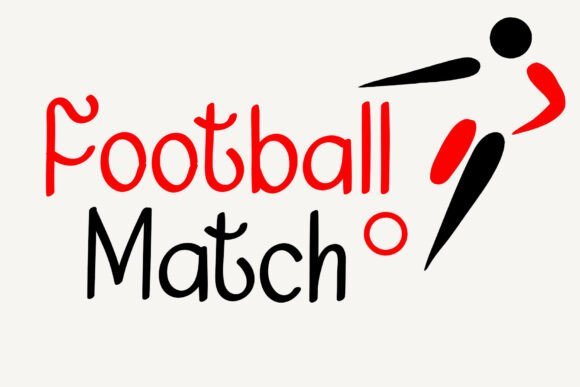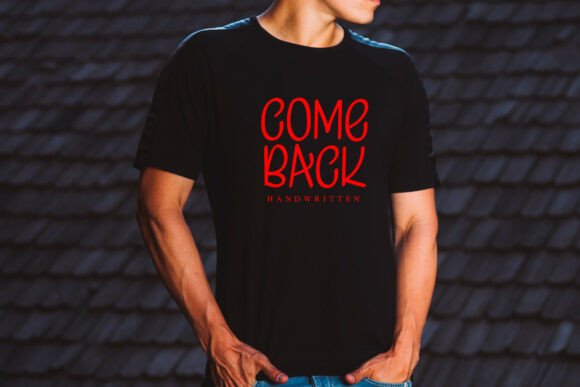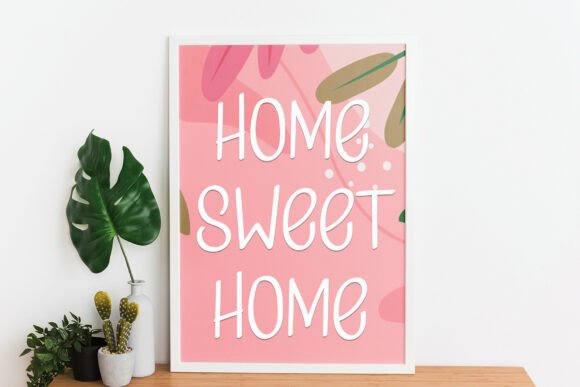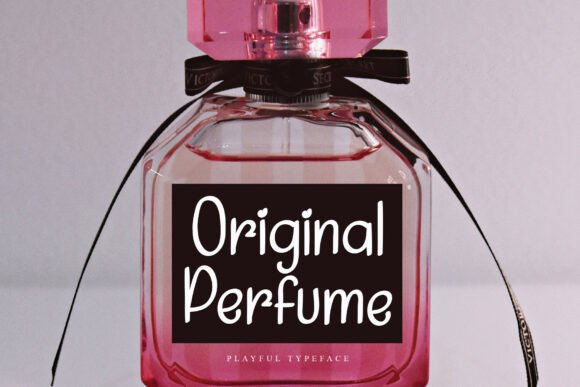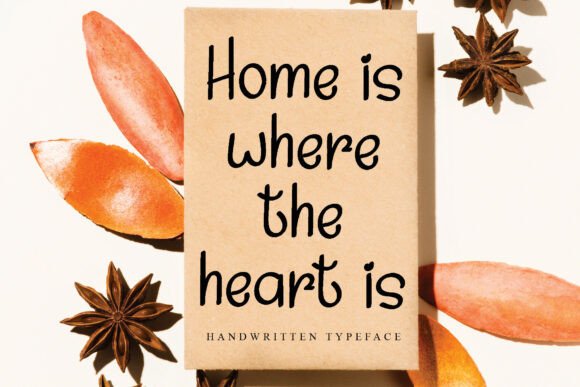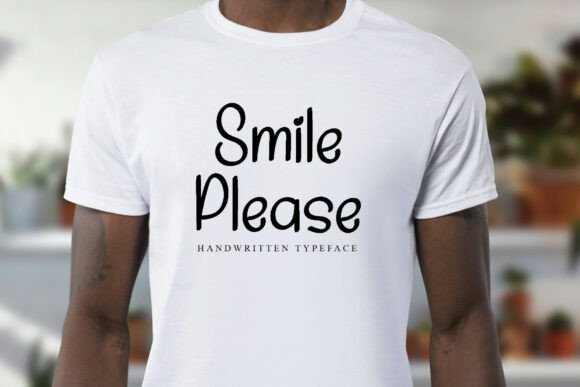
Getting Ready for Kickoff: Introducing Football Match Font
As you sit down to design your next project, you’re suddenly hit with a burst of inspiration – the sound of cheering crowds, the smell of freshly cut grass, and the thrill of competition. You can almost hear the roar of the stadium as you imagine the perfect typography to match the energy of the game.
Enter Football Match Font, a high-energy, casual handwritten display font designed to capture the fast-paced movement of the pitch. Engineered for sports enthusiasts and playful layouts, this dynamic font is the perfect way to add a friendly, athletic vibe to your designs. Whether you’re creating posters for a youth league tournament or custom athletic t-shirt prints, Football Match Font is a valuable asset that’s sure to score big on personality.
As a designer, you know the importance of choosing the right font to convey your message. Football Match Font is a fantastic choice for a wide variety of youth sports and community projects, offering a unique blend of readability and visual flair that’s sure to leave a lasting impression.
Key Features of “Football Match Font”
- Unique Characteristics: Features a custom-designed set of ligatures and swashes to enhance the visual appeal of match scores, player names, and other text elements, giving it a distinctive and modern look.
Football Match Font Review
First off, I have to say that Football Match Font is a unique and attention-grabbing choice for sports-related designs. ✨ The bold, dynamic feel really captures the energy of a live match, and the font’s varied letterforms add a fun, hand-drawn quality that sets it apart from more generic sans-serifs. ✨ The font also includes a range of alternates and swashes that can be used to add flair and personality to headings and titles.
However, there are some limitations to consider. ⚠️ One of the main issues is that the font’s boldness can sometimes feel overwhelming, making it difficult to read at smaller sizes or in certain contexts. ⚠️ Additionally, the font’s more ornate features can be a bit inconsistent, which may make it harder to achieve a cohesive look across different elements of a design.
In terms of overall impression, Football Match Font is a great choice for sports-themed designs or anything that needs a bold, energetic feel. However, it’s worth being mindful of the potential limitations and using it judiciously to avoid overwhelming the viewer.
- Pros: Unique, attention-grabbing design; fun, hand-drawn quality; varied letterforms and alternates.
- Cons: Can feel overwhelming at smaller sizes; inconsistent ornate features.
Getting the Most Out of Football Match Font
Use bold and italic styles to emphasize key match statistics, such as goals scored or player names. Experiment with different font sizes and colors to create visual interest and draw attention to important information.
The Football Match Font is ideal for:
- Match day programs and schedules
- Team logos and branding
- Scoreboards and live updates
- Social media graphics and promotions